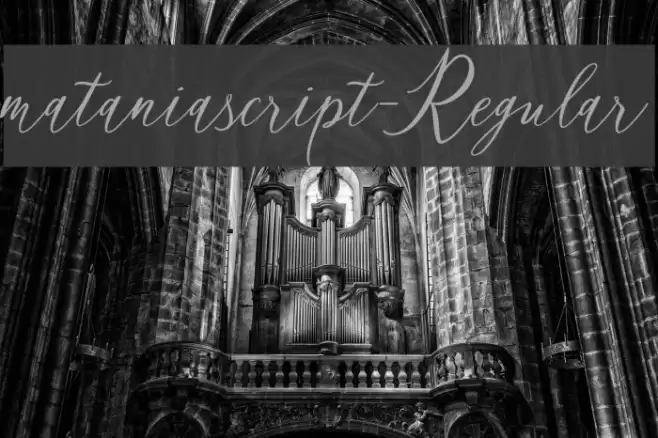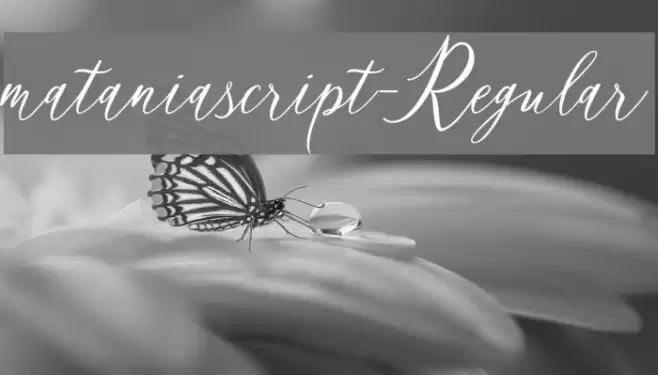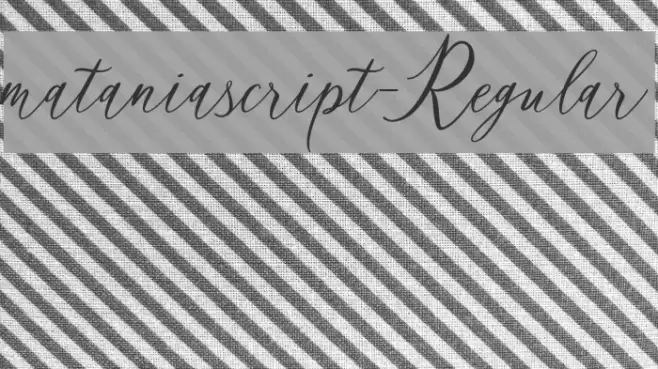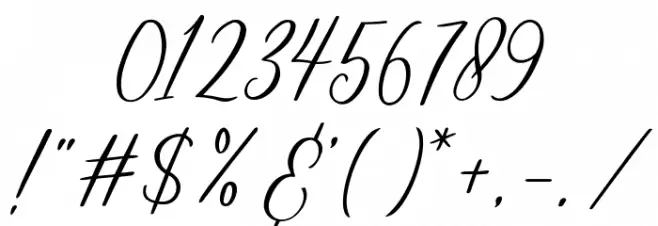
mataniascript-Regular Font
mataniascript-Regular Description
This elegant script font features fluid, cursive strokes that convey a sense of sophistication and grace. The uppercase letters are tall and slender, with sweeping curves and delicate loops, while the lowercase letters maintain a consistent flow with slightly exaggerated ascenders and descenders. The numerals are stylishly integrated, matching the overall cursive theme. Special characters are thoughtfully designed to complement the alphabet, ensuring a cohesive look across all text. The font's smooth, flowing lines make it ideal for creating a refined and polished appearance.
A graceful script font with fluid, cursive strokes and elegant character design from Uncategorized fonts.
- Proposed Projects: Ideal for wedding invitations, elegant branding, personal signatures, and decorative headings.
- Overall Style: Elegant
- Use Case: Logos, Invitations, Decorative text